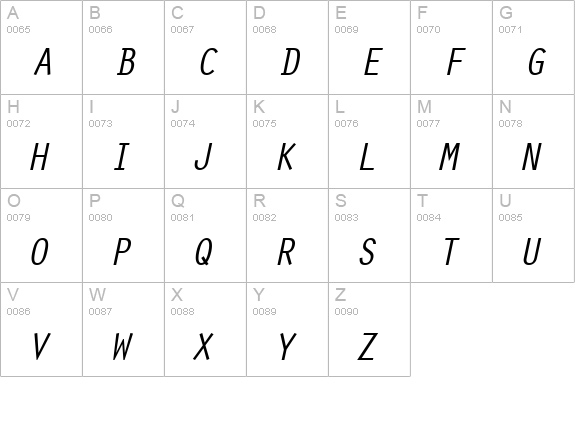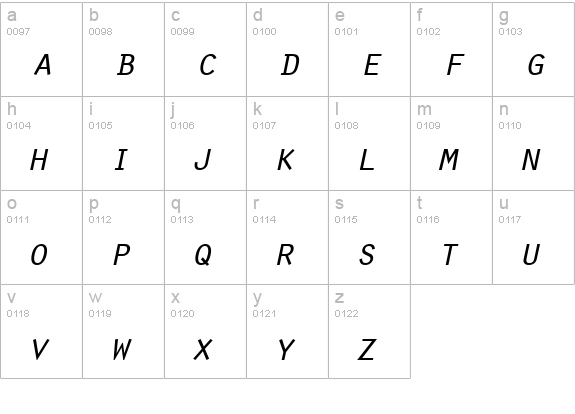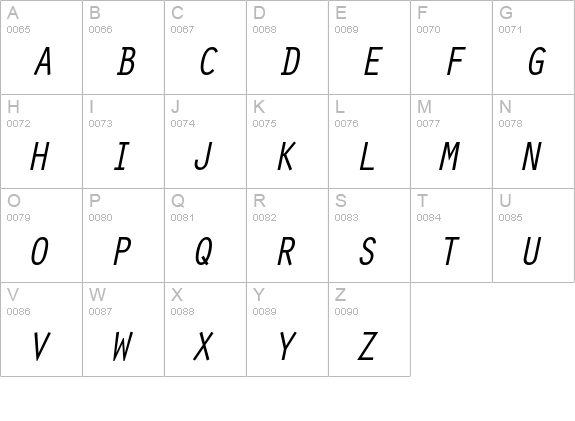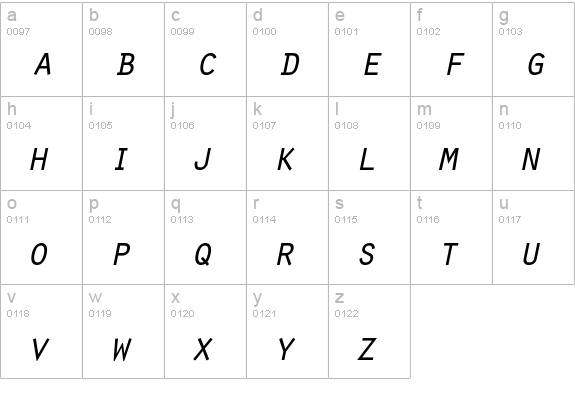
Scribe SSi Italic Small Caps Font Details
Scribe SSi Italic Small Caps is a distinctive, italic variant in the Scribe typeface family \xE2\x80\x94 well suited to design and typography projects.
Scribe SSi Italic Small Caps font is a beautifully crafted typeface that exudes elegance and sophistication. Its delicate strokes and refined curves make it perfect for adding a touch of grace to any design project. The italic styling adds a sense of movement and dynamism, while the small caps give it a unique and distinctive look. This font is a true gem for designers who seek a combination of classic and modern elements. It effortlessly blends traditional calligraphic influences with contemporary design sensibilities. Whether used for headlines, logos, or body text, Scribe SSi Italic Small Caps font is sure to make a lasting impression. One of the best things about this font is that it is free to download. Yes, you read that right! Scribe SSi Italic Small Caps font is freely available for download at FontsMarket.com. This means that you can easily access and use it in your projects without any cost or restrictions. With its versatility and timeless appeal, Scribe SSi Italic Small Caps font is a must-have for any designer looking to add a touch of sophistication to their work. So don't miss the opportunity to enhance your designs with this amazing font. Visit FontsMarket.com and download Scribe SSi Italic Small Caps font today!